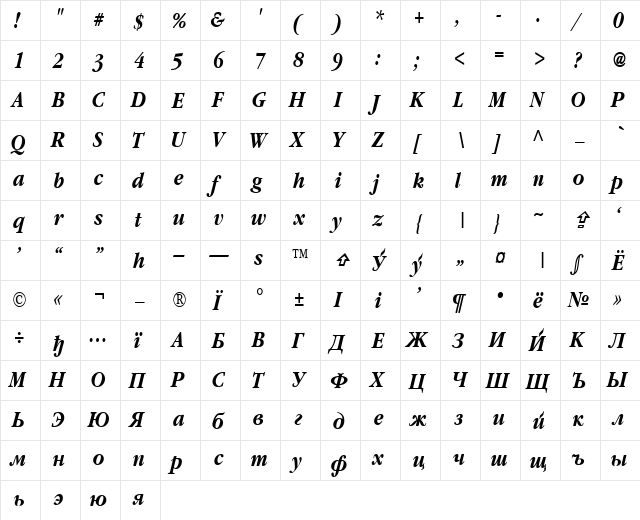
Classic Russian Bold Italic
Design Context for Classic Russian Typeface
Classic Russian wears its vintage influences proudly, with letterforms that recall mid-century signage, classic packaging, and nostalgia-driven design. The slanted form adds forward momentum and visual energy. Its bold stroke weight gives it real presence on the page.
Font Pairing: Combine Classic Russian with a simple slab or neutral sans — period-accurate companions reinforce the vintage feel without competing for attention.
Pro Tip: Use Classic Russian for headlines and pull quotes rather than body copy — its personality is best appreciated in short, focused bursts.